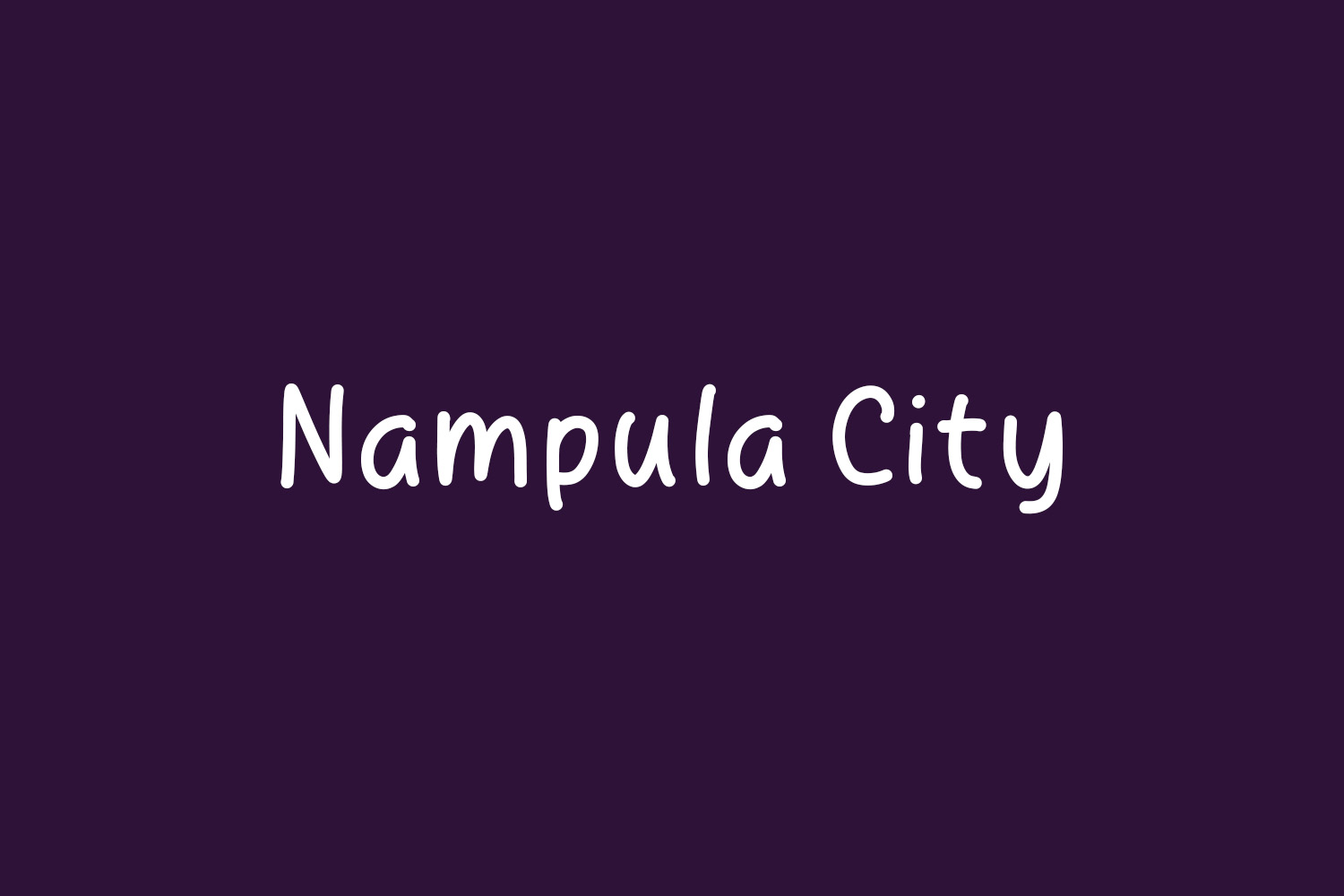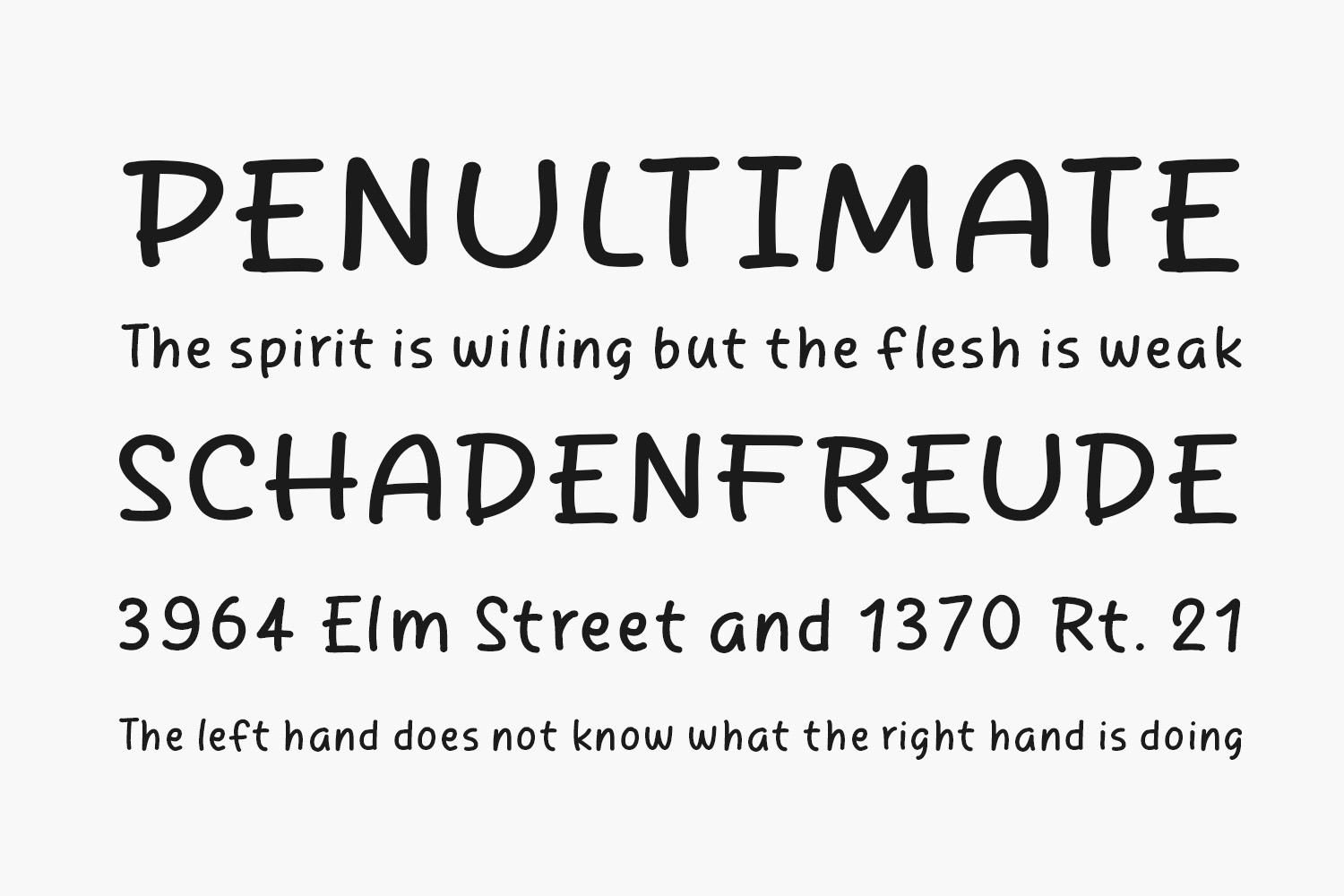
Nampula City Free Font is a modern and cute handwritten display font perfect for posters, logos, magazines, book covers, banners, and many more! Get this amazing font, and use it to create lovely designs. It can easily be matched to an incredibly large set of projects, so add it to your creative ideas and notice how it makes them stand out. Nampula City Free Font is free for personal use only. Please purchase the full version for commercial use.